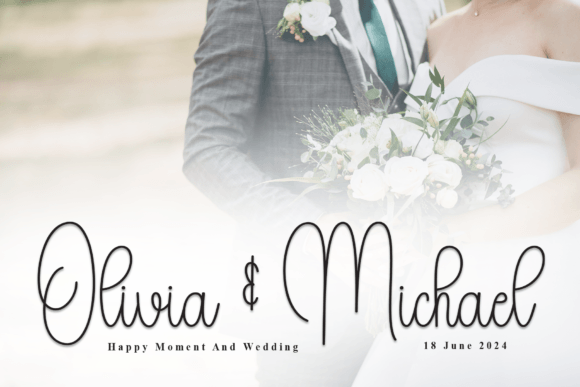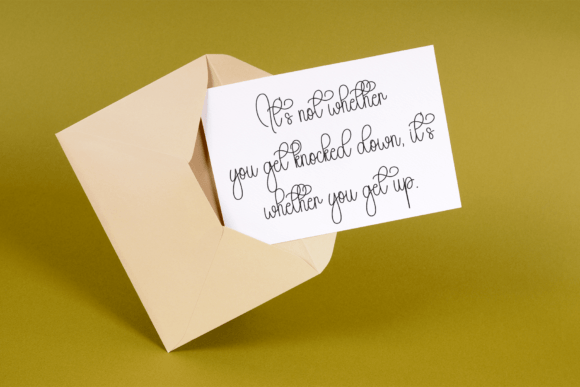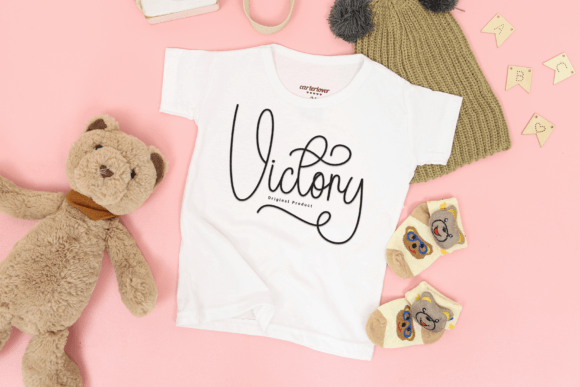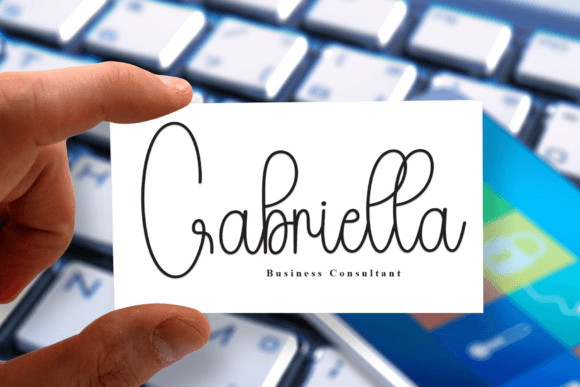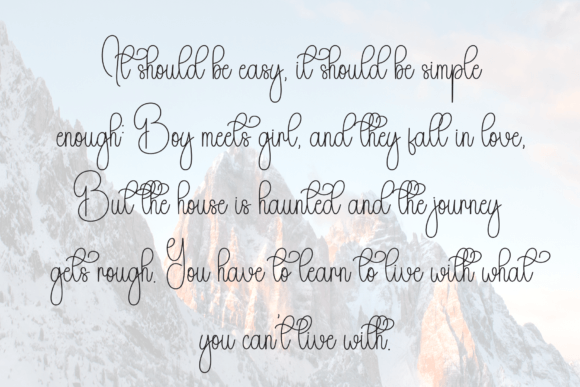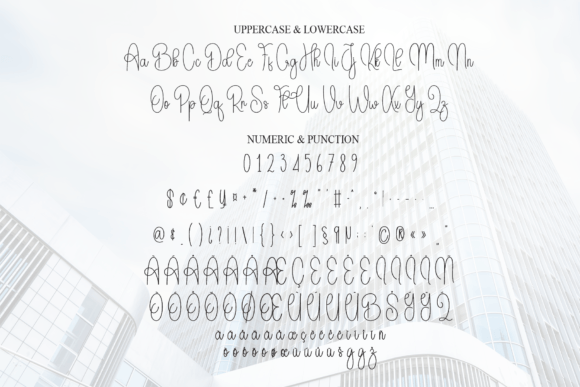
Introducing Building Font: The Casually Elegant Handwritten Font
Are you tired of using the same old fonts in your designs? Look no further! We’re excited to introduce Building Font, a casually elegant handwritten font that’s all about charm and sophistication. This beautiful font is bursting with sweetness and friendliness, making it the perfect addition to your design toolkit.
The Perfect Blend of Joy and Sophistication
Building Font has been skillfully crafted to bring an element of joyful energy to your designs. Its unique blend of playfulness and sophistication makes it an ideal choice for a variety of projects, from wedding invitations and delightful cards to social media graphics and branding materials. Whether you’re a designer, crafter, or DIY enthusiast, this font is sure to inspire your creativity.
What Makes Building Font Special?
So, what sets Building Font apart from other fonts? Here are just a few of its standout features:
• Handwritten charm: Building Font is a carefully crafted handwritten font that exudes warmth and personality.
• Unique character: Each letter has been designed to bring a touch of fun and whimsy to your designs.
• Highly versatile: This font can be used for a wide range of projects, from formal events to casual designs.
• Elegant and refined: Despite its playful nature, Building Font still conveys a sense of sophistication and elegance.
Perfect for Wedding Invitations and More
Building Font is particularly well-suited for wedding invitations, baby shower cards, and other special occasion designs. Its romantic and whimsical feel makes it an excellent choice for:
• Wedding invitations: Add a touch of elegance and whimsy to your wedding stationery.
• Cards and gift tags: Create personalized and charming cards for any occasion.
• Social media graphics: Use Building Font to add a playful touch to your social media graphics and posts.
• Branding materials: Incorporate this font into your brand identity for a friendly and approachable feel.
Tips for Using Building Font
To get the most out of Building Font, here are a few tips to keep in mind:
• Pair with contrasting fonts: Combine Building Font with a clean, sans-serif font to create visual interest.
• Experiment with colors: Try pairing Building Font with a range of colors to find the perfect match for your design.
• Use it sparingly: While Building Font is beautiful, it can be overwhelming if overused. Balance it with other design elements to create a cohesive look.
Get Ready to Fall in Love with Building Font
In conclusion, Building Font is a must-have for designers, crafters, and DIY enthusiasts looking to add a touch of whimsy and sophistication to their projects. Its unique character, versatility, and elegance make it an excellent choice for a wide range of designs. Whether you’re creating wedding invitations, social media graphics, or branding materials, Building Font is the perfect choice. So go ahead, give it a try, and see the difference it can make in your designs!